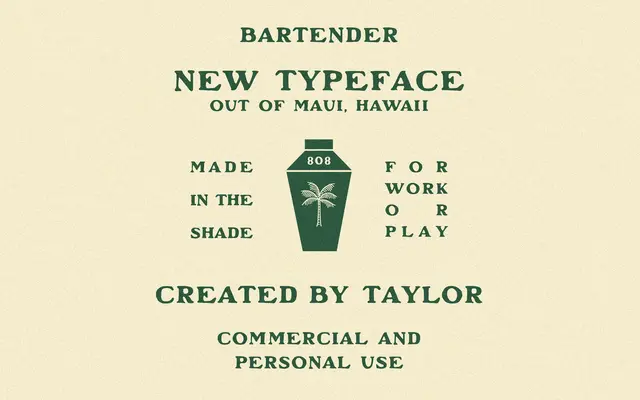
Bartender
Bartender specimen from Taylor Penton
A single-weight display serif with vintage texture and strong curves, aimed at packaging, signage and logo work with a nostalgic character.
Coming in one Regular weight, it offers 166 glyphs covering Western European languages including Icelandic and Welsh. The design leans on deliberate imperfection and period-influenced curves to suggest age and handcraft. Best suited to short-setting contexts where a worn, vintage tone is the point.
A vintage-styled display serif with strong curves and deliberate texture, suited to packaging and signage rather than text setting. The foundry's own framing points to a nostalgic, decorative character consistent with display classification.